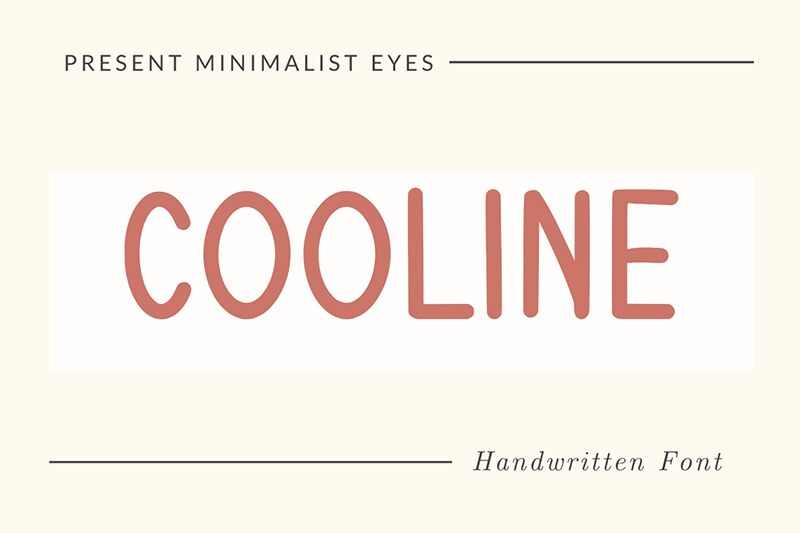
Cooline font is designed by Muhammad Afif with a minimalist, light, geometric, and monochrome style perfect for keeping things neat and tidy. The condensed characters present classical uniform line quality within a modern aesthetic approach. A certain quality in this handwritten gem makes it modish yet easy to read.
Use the free font for branding designs of different sorts of businesses especially ones related to beauty and fashion. Create product packaging designs such as makeup labels or skincare brands along with design items like invitation cards, greeting cards, and more! ​